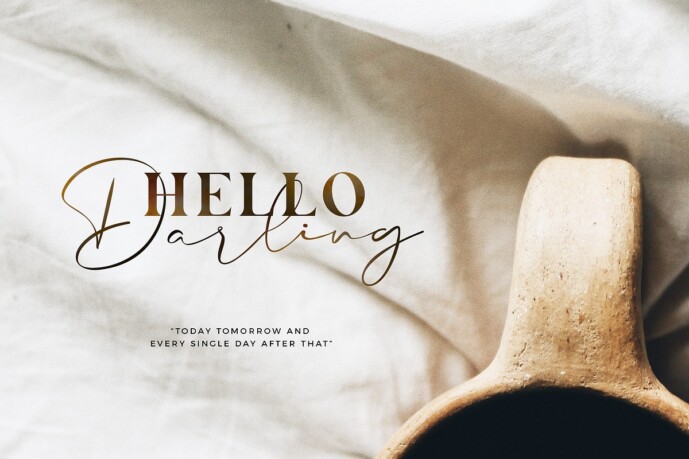
Carphe Font Duo
Designer: Sans & Sons
Carphe Font Duo, with Modern Luxury Style this is perfect for branding, logos, invitation, masterheads and more.